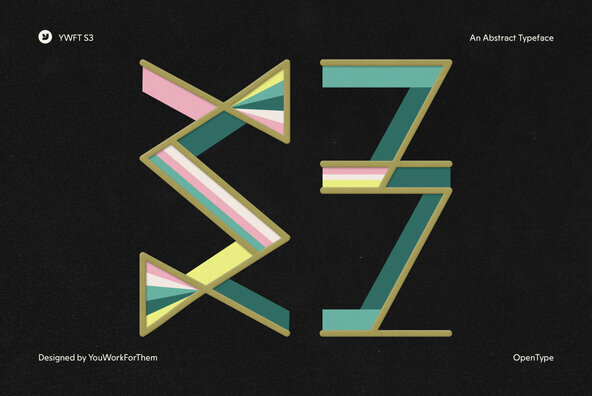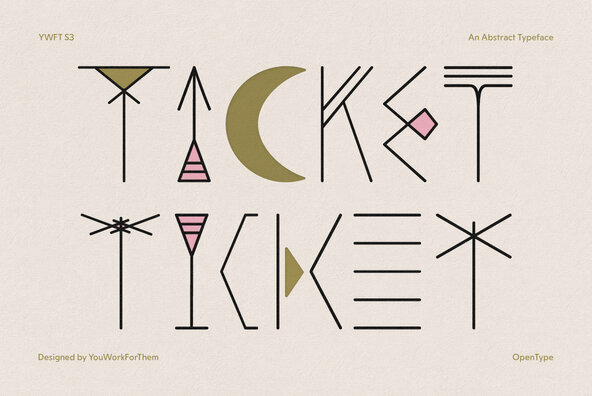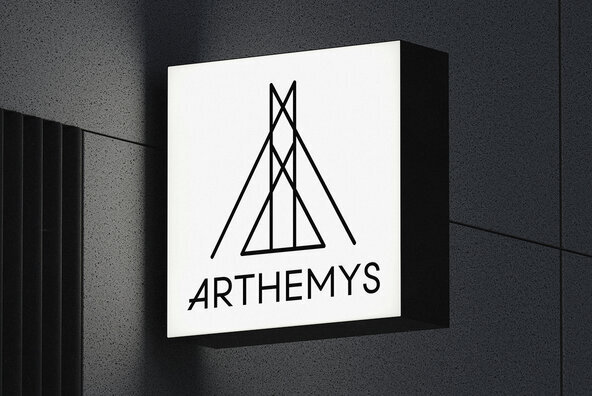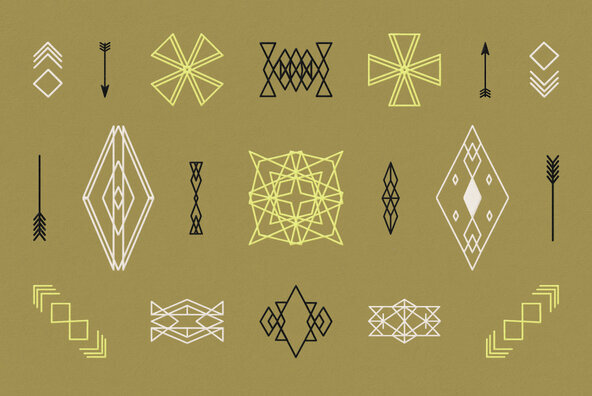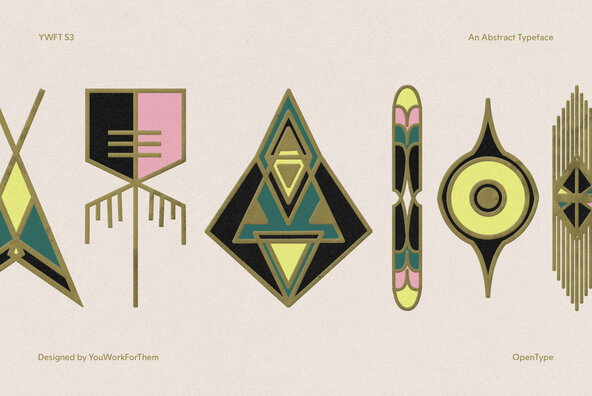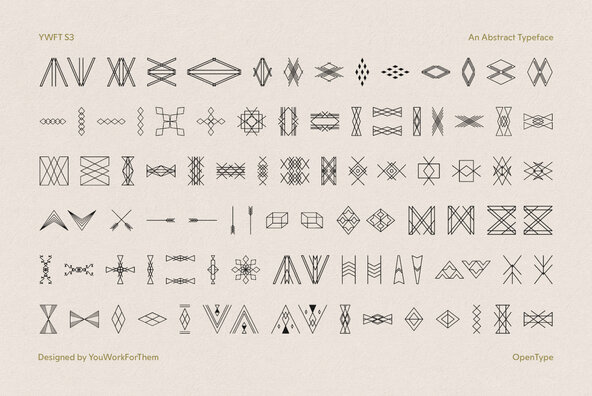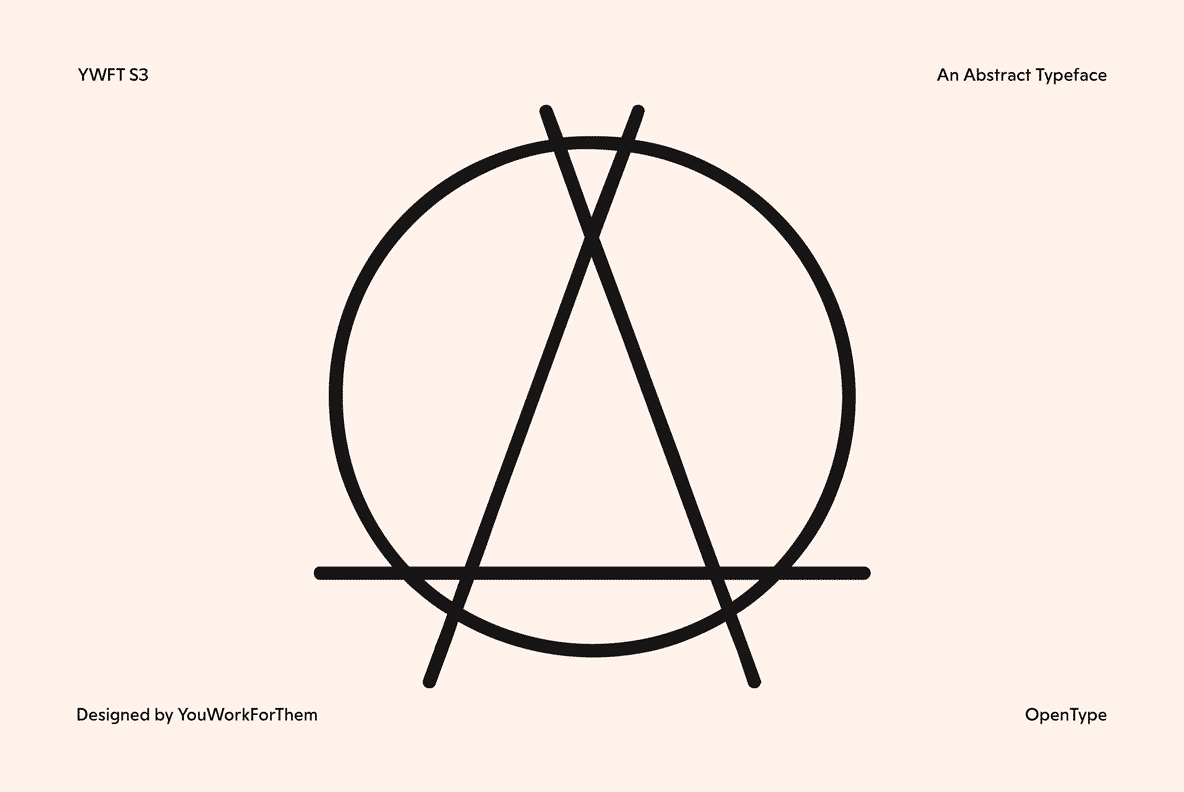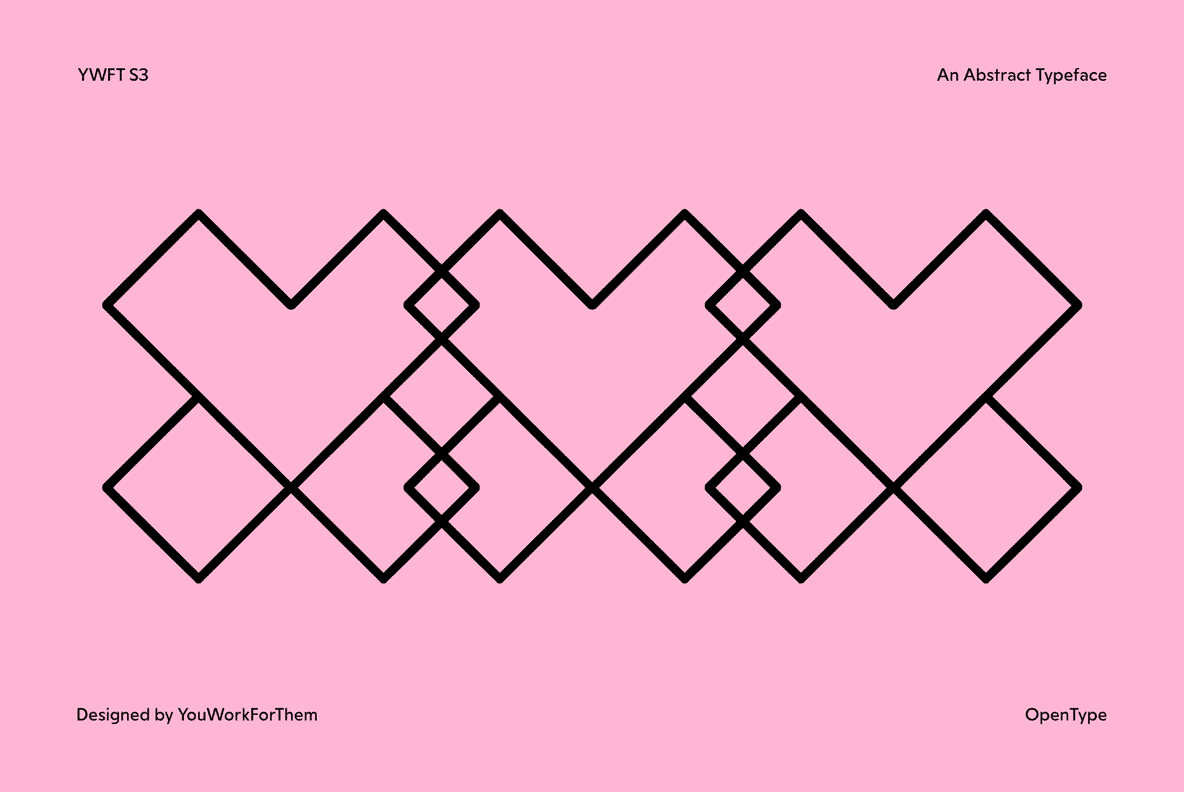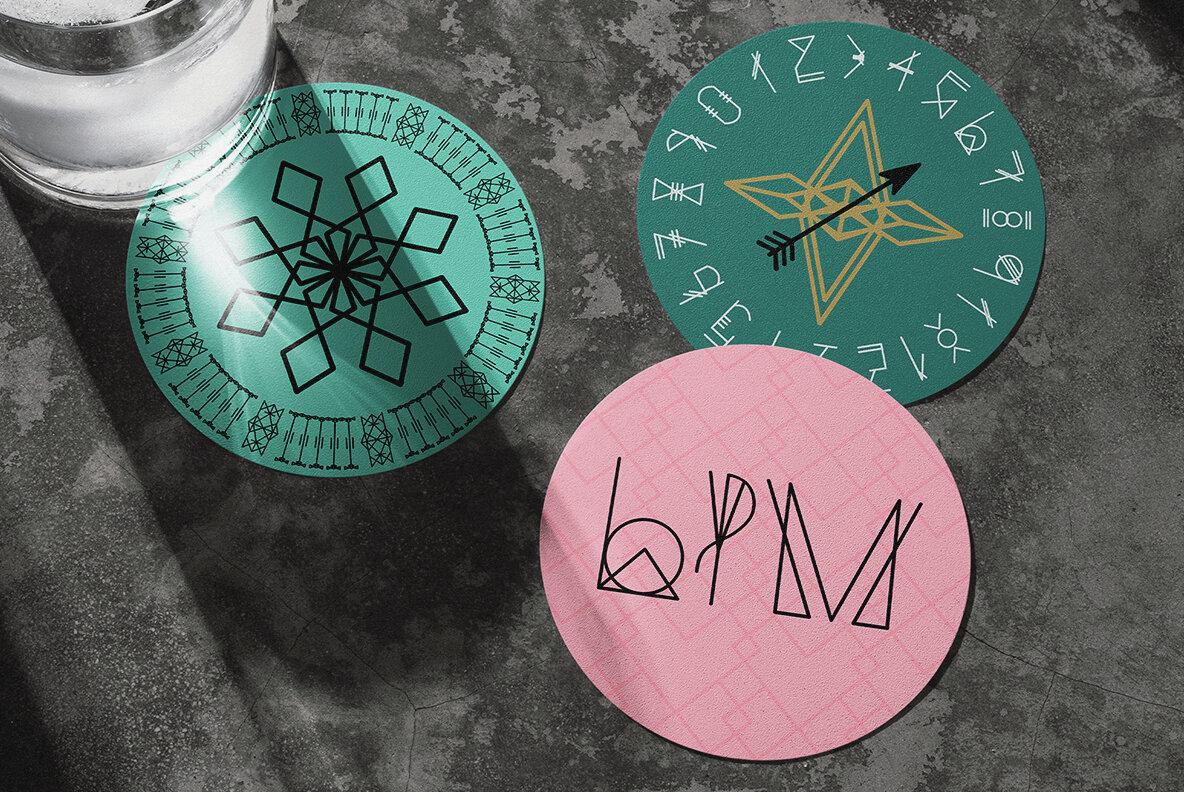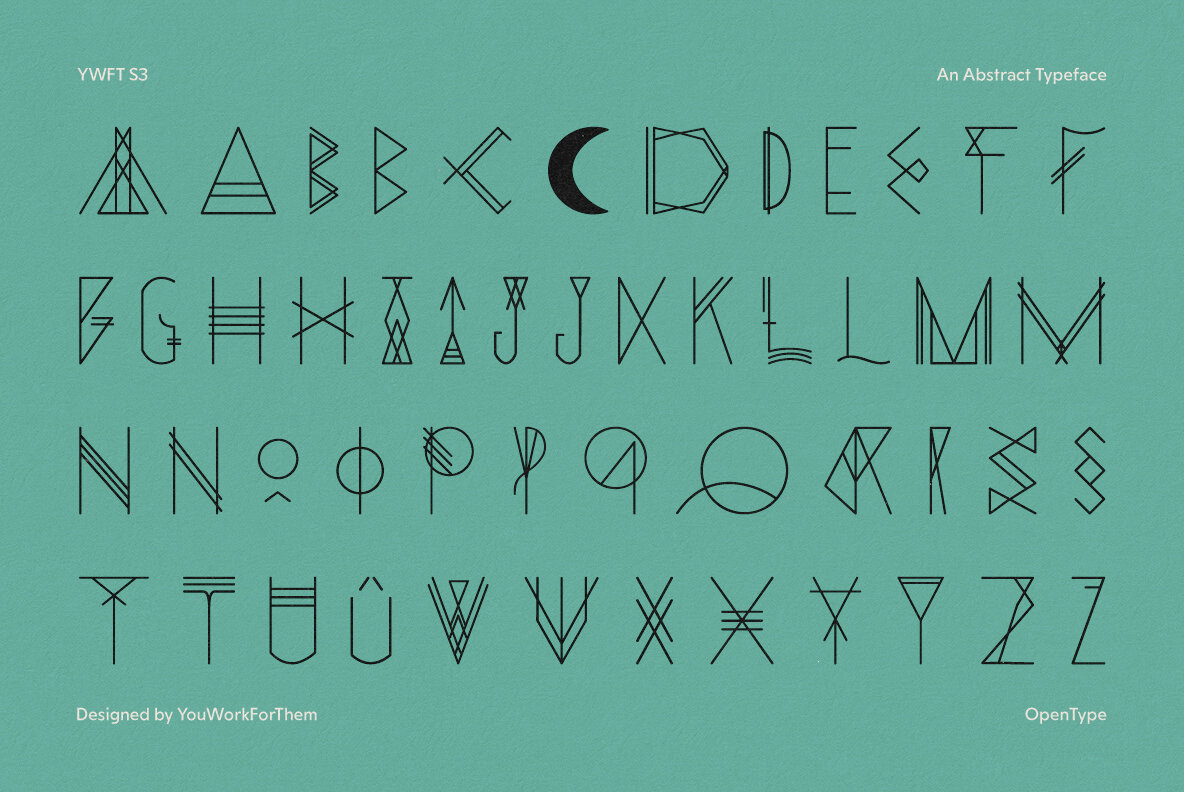
Quick, somebody call Erich von Däniken! YWFT S3 is a folktronic, arts-and-circuits, crocheted robotic masterpiece of the first order, with two weights (regular and alternate) and two pattern fonts, also at two weights (regular and alternate). When certain letter combinations are typed ("JLJLJL" for example), pre-kerned patterns are revealed like Indiana Jones in the Temple of Kern. Less about aesthetic or tradition, and more about decadent artistic license, YWFT S3 is for designers who truly want to boldly go where no fonts have gone before.